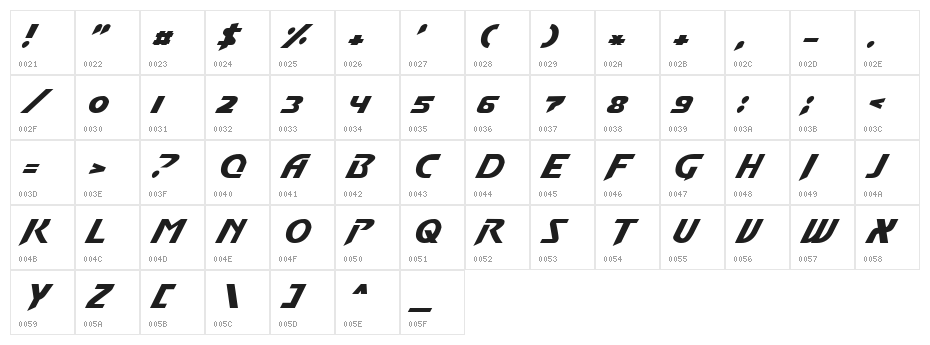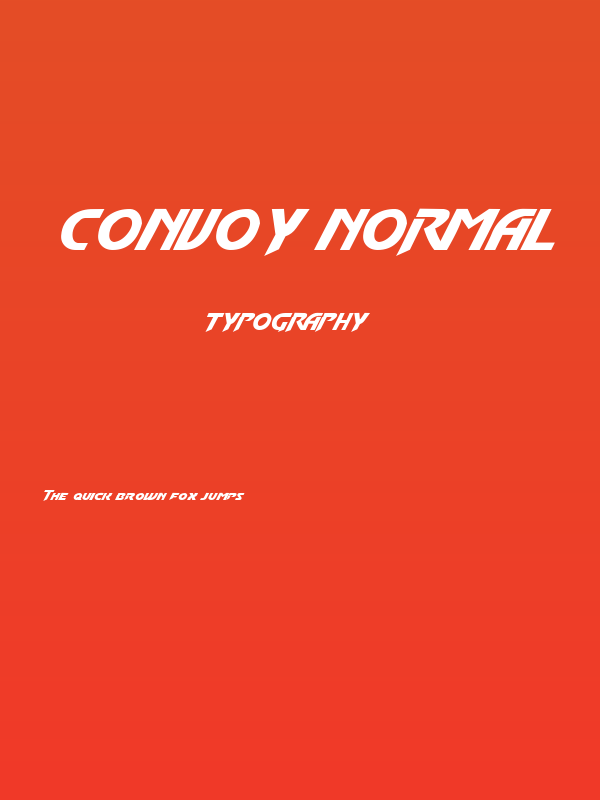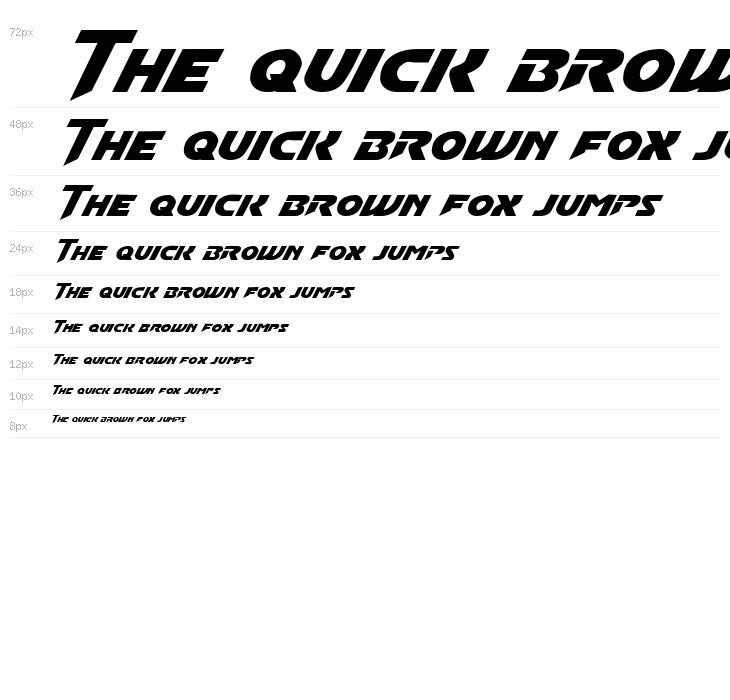
Convoy Normal Font
Convoy Normal Description
This font features a bold and dynamic style with sharp, angular edges and a forward-leaning slant, giving it a sense of motion and energy. The uppercase and lowercase letters maintain a consistent geometric form, with each character exhibiting a unique cut or slice that adds to its futuristic and edgy appearance. The numerals and special characters follow the same design principles, ensuring uniformity across all glyphs. The font's strong presence makes it ideal for attention-grabbing designs.
| Proposed Projects | Ideal for use in branding, sports team logos, video game titles, and sci-fi themed posters. |